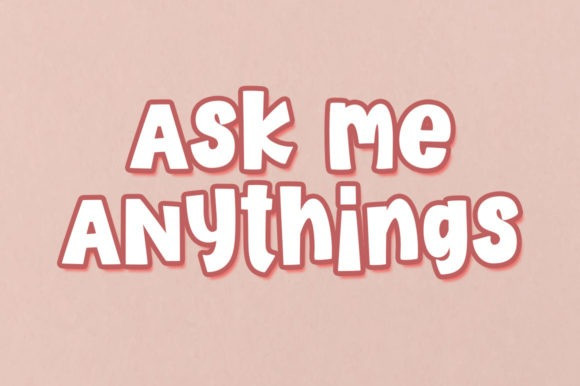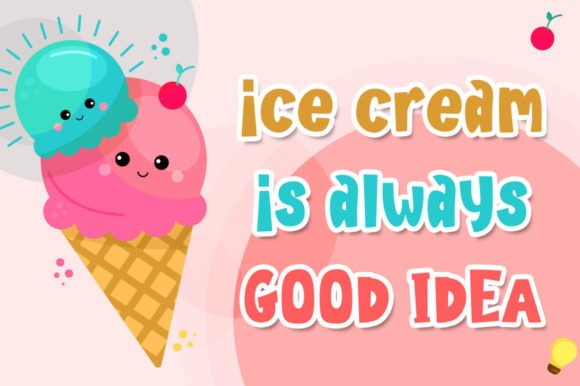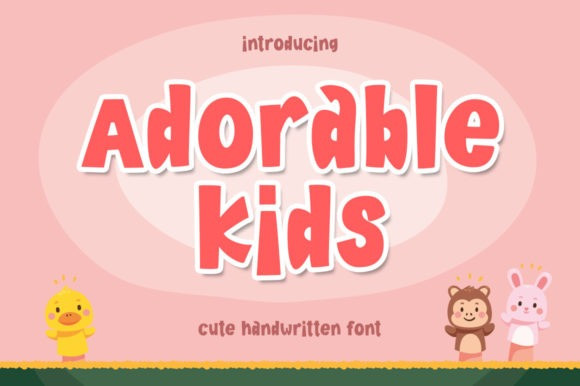
Adorable Kids Font
Adorable Kids Font is a simple and playful display font. It can be used for various purposes such as logos, headings, t-shirts, letterheads, signage, labels, news, posters, badges and so much more.